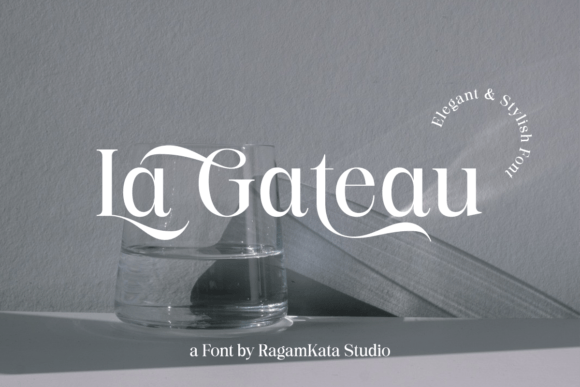
Introducing La Gateau Font, the epitome of timeless elegance and style. Created by the talented RagamKata Studio, this serif font is the ideal choice for those seeking the best font for trendy logos.
With its graceful curves and impeccable shape, La Gateau Font exudes a sense of majesty that will captivate your audience. Each letter is meticulously crafted, resulting in a typeface that is both classic and sophisticated.
What sets La Gateau Font apart from the rest is its seamless ligatures. These special connections between letters add a touch of finesse to your designs, making them truly stand out. Whether you're working on a luxury logo, an editorial piece, or a fashion brand promotion, this font will elevate your project to new heights.
Imagine the impact of a logo created with La Gateau Font. It exudes confidence, refinement, and a sense of timelessness. Your brand will instantly become synonymous with class and sophistication, drawing the attention of discerning customers.
But La Gateau Font is not just about aesthetics. It is strategically designed to evoke emotions and create a lasting impression. Its clean and precise lines deliver a sense of professionalism, while its subtle curves add a hint of playfulness. This unique combination will leave a lasting impression on your audience, ensuring they remember your brand long after seeing it.
Furthermore, La Gateau Font is incredibly versatile, allowing you to use it in a wide range of design projects. Whether you're creating stunning packaging, designing eye-catching posters, or crafting impactful social media graphics, this font will deliver every time.
In a world where first impressions matter, La Gateau Font gives you the power to make a statement. It speaks volumes about your brand's commitment to excellence and sets you apart from the competition.
Remember, your brand deserves nothing but the best. Choose La Gateau Font and let your creativity shine.